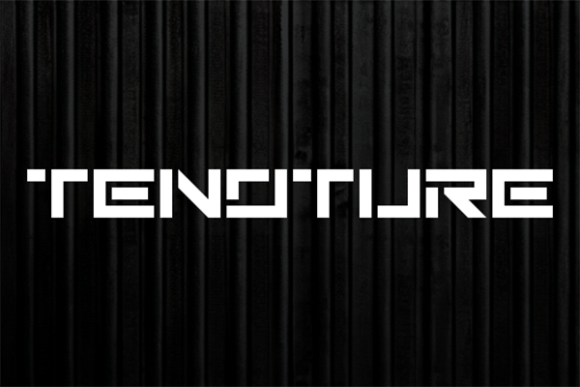
Journey into the world of Tenoture Font, a display font family that captivates with its futuristic charm and military precision. Daymarius, the font's creator, has crafted a masterpiece that transcends time, ensuring its relevance in any era.
Tenoture Font is not just a collection of letters; it's an invitation to unleash your creativity and explore new horizons. Whether you're designing logos, crafting movie titles, developing games, or creating music posters, Tenoture Font will elevate your work to new heights.
Its simplicity is its strength, allowing it to seamlessly adapt to any design concept. The stencil-like design adds a touch of intrigue, making it perfect for both futuristic and military-themed projects.
With Tenoture Font, you'll never experience creative stagnation. Its timeless appeal ensures that your designs will remain relevant and impactful, no matter how the trends may shift.
Embrace Tenoture Font and unlock a world of creative possibilities. Let its futuristic elegance and military precision inspire your next masterpiece.